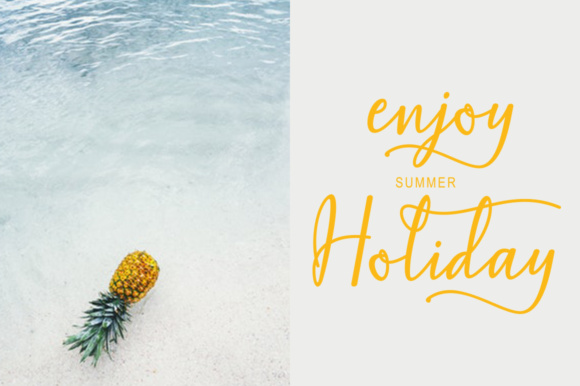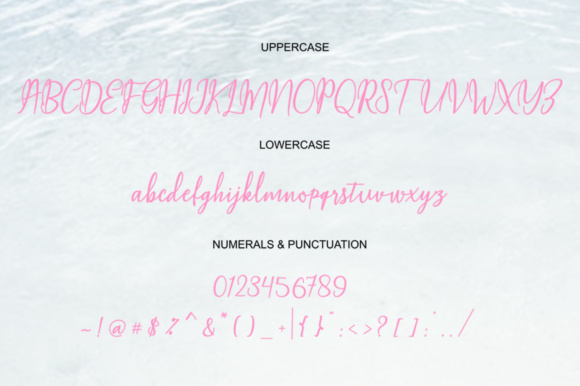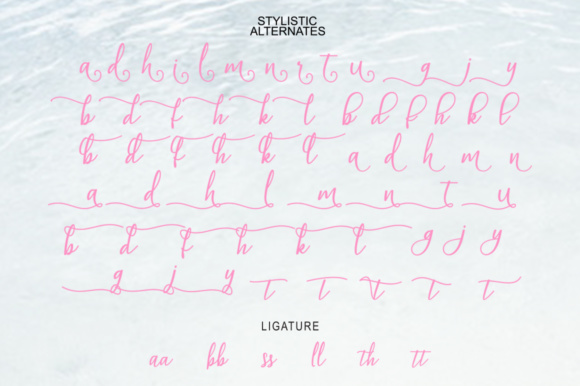
Introduction to Maqella Font
As a designer, there’s nothing quite like the thrill of adding that perfect finishing touch to a creative project. Whether it’s a beautifully crafted logo, a stunning typographic poster, or a heartfelt wedding invitation, the right font can make all the difference. And if you’re looking to add a touch of elegance and sophistication to your design, you’re in luck – we’re about to introduce you to the gorgeous Maqella Font.
With its unique, handcrafted style and high-quality design, Maqella Font is the perfect addition to any creative project. Whether you’re working on a print or digital design, this versatile script font is sure to impress. And the best part? It’s available for free download, making it an invaluable resource for designers of all levels.
Key Features of Maqella Font
- Unique, hand-drawn design suitable for creative projects and artistic expressions.
- High-quality font with a transparent background, ideal for use on various design resources.
- Comes in a single weight, perfect for projects where a simple, elegant font is required.
Honest Review: Maqella Font
As a designer, I’m always on the lookout for high-quality design resources to elevate my creative projects. Recently, I had the opportunity to try out the Maqella Font, and I’m excited to share my honest review with you.
- High-quality design: The Maqella Font is well-crafted, with a clean and elegant design that’s perfect for various creative projects.
- Limited font styles: While the Maqella Font is well-designed, it’s limited to a single font style, which might not be suitable for projects that require multiple font variations.
- Not ideal for large-scale projects: The font might not be the best choice for large-scale projects that require a high level of customization.
Overall, the Maqella Font is a solid design resource that can be a great addition to your design toolkit. While it has some limitations, its high-quality design and free download make it an excellent choice for smaller creative projects.
Getting the Most Out of Maqella Font
For the best results, use the Maqella Font in conjunction with other design elements that match its style. Experiment with different font sizes, colors, and arrangements to find the perfect combination for your design.
The Maqella Font is perfect for use in a variety of creative projects, including logos, business cards, and social media graphics. Its high-quality design and transparent background make it ideal for digital designs.
The Maqella Font is a high-quality design resource due to its precise letterforms, transparent background, and scalable design. It is suitable for use in a variety of creative projects, including logos, branding, and print materials.